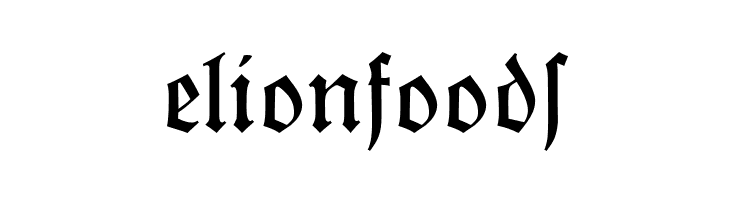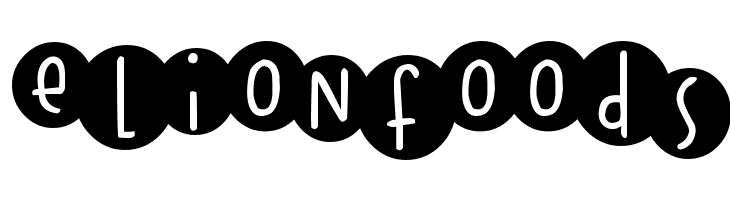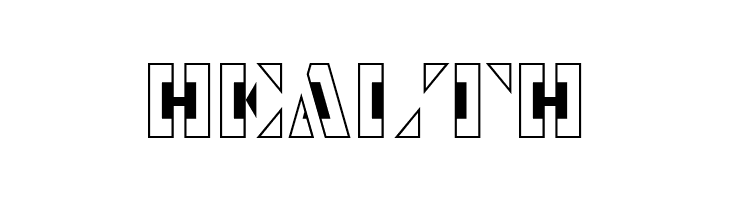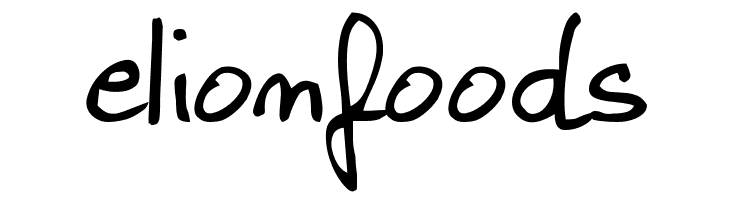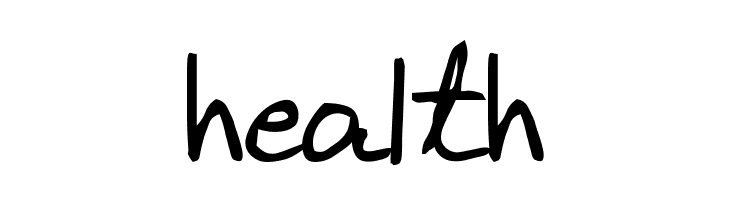
A thin, elongated font with a rough, hand-drawn texture.
A modern, thin sans-serif font with a minimalist style.
A modern, thin, and geometric font with clean lines and a sophisticated style.
A bold, condensed sans-serif font with a modern and clean design.
A thin, italicized geometric font with a modern and technical style.
A classic serif typeface with elegant, balanced lines and moderate contrast.
A modern, thin, and geometric sans-serif font with clean lines.
A bold, rounded font with smooth curves and a modern, friendly style.
A bold, modern sans-serif font with a geometric structure.
A bold, slanted font with a modern and dynamic style.
A playful, hand-drawn style with thin, uneven strokes and a whimsical feel.
Bold, monochrome icons themed around elections and politics.
Monochrome pixel art illustrations of firearms in a retro digital style.
A playful, modern font with geometric and cursive elements.
A dynamic, expressive handwritten font with rough, textured strokes.
A graceful script font with flowing, interconnected letters and bold numerals.
A playful and whimsical handwritten font with dynamic strokes.
An elegant script font with flowing, interconnected letters and ornate flourishes.
An elegant, flowing script font with a handwritten style and delicate line work.
A pixelated, blocky font with a retro digital aesthetic.
A bold, pixelated font with a retro, digital style.
A geometric, block-like font with a modern and structured appearance.
A bold, geometric font with a modern, tech-inspired aesthetic.